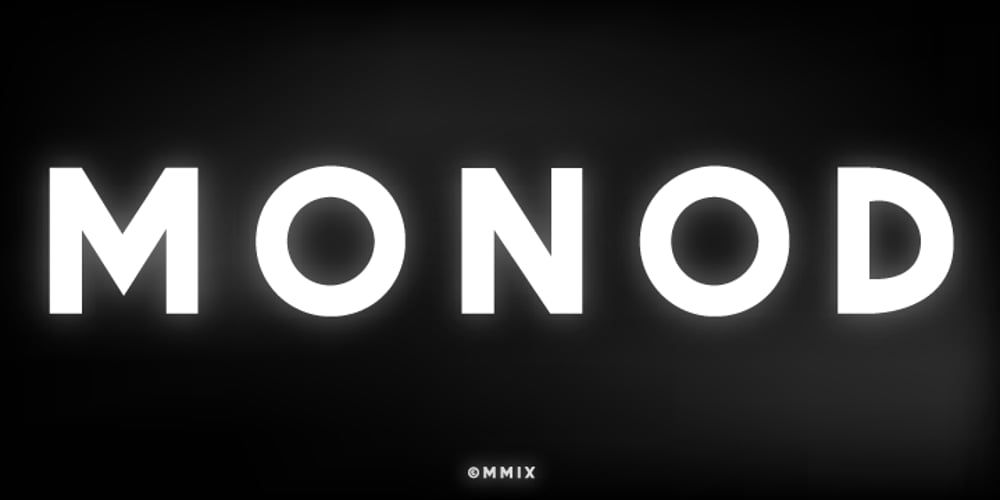
Monod Font Family was designed by V.H. Fleisher and published by Resident. Monod contains 2 styles and family package options. Created in 2009 by V.H. Fleisher, Monod is a geometric sans-serif typeface. The font has OpenType features that can be accessed in programs like the Adobe Creative Suite. These features include titling caps which are heavier & more tightly spaced than the regular caps, alternative punctuation marks, and arbitrary nut fractions (for single digit numerators & denominators). By clicking on the “gallery” tab above, you can see an illustration of the OpenType features. The “ff” tab on the “Sample Text” bar below allows you to test the OpenType features with your own text. Supported languages include: Albanian, Czech, Danish, Dutch, English, Faroese, Finnish, French, German, Icelandic, Italian, Norwegian, Portuguese, Spanish & Swedish.